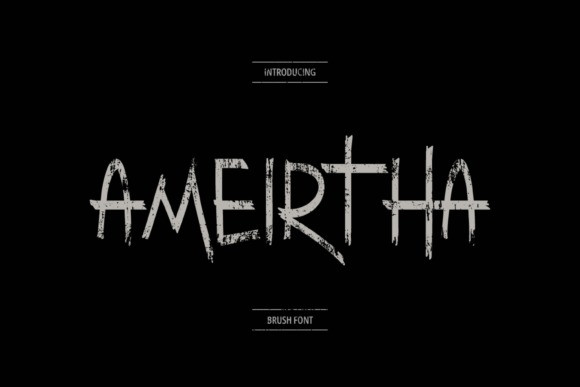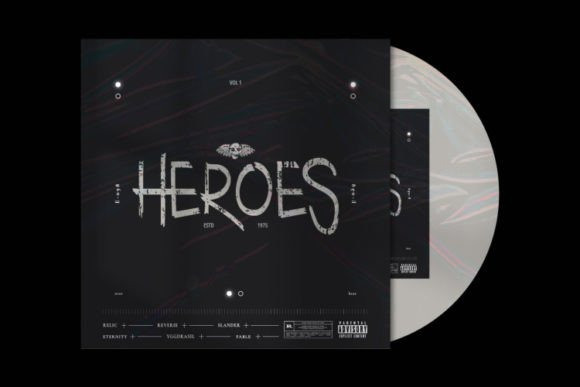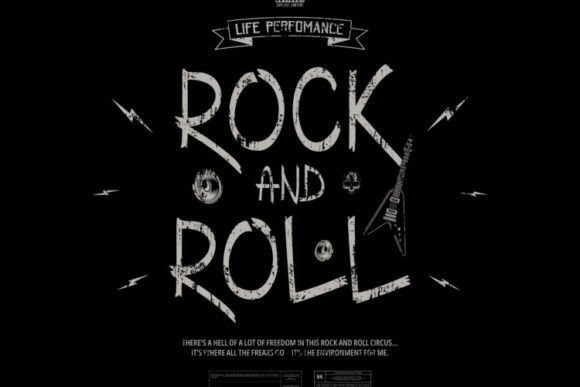
Ameirtha Font
Ameirtha is a cool and dark brush display font. Add it to any of your creative projects, and it will seduce your audience with its style and form.